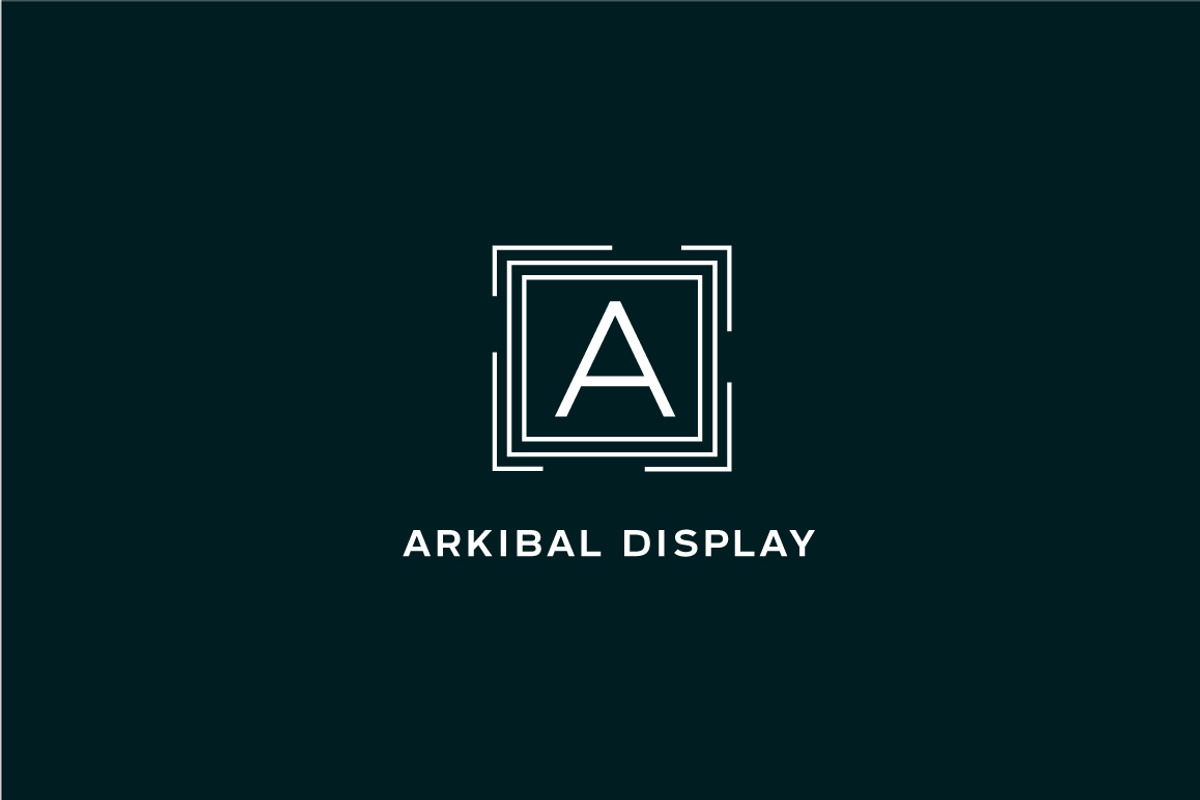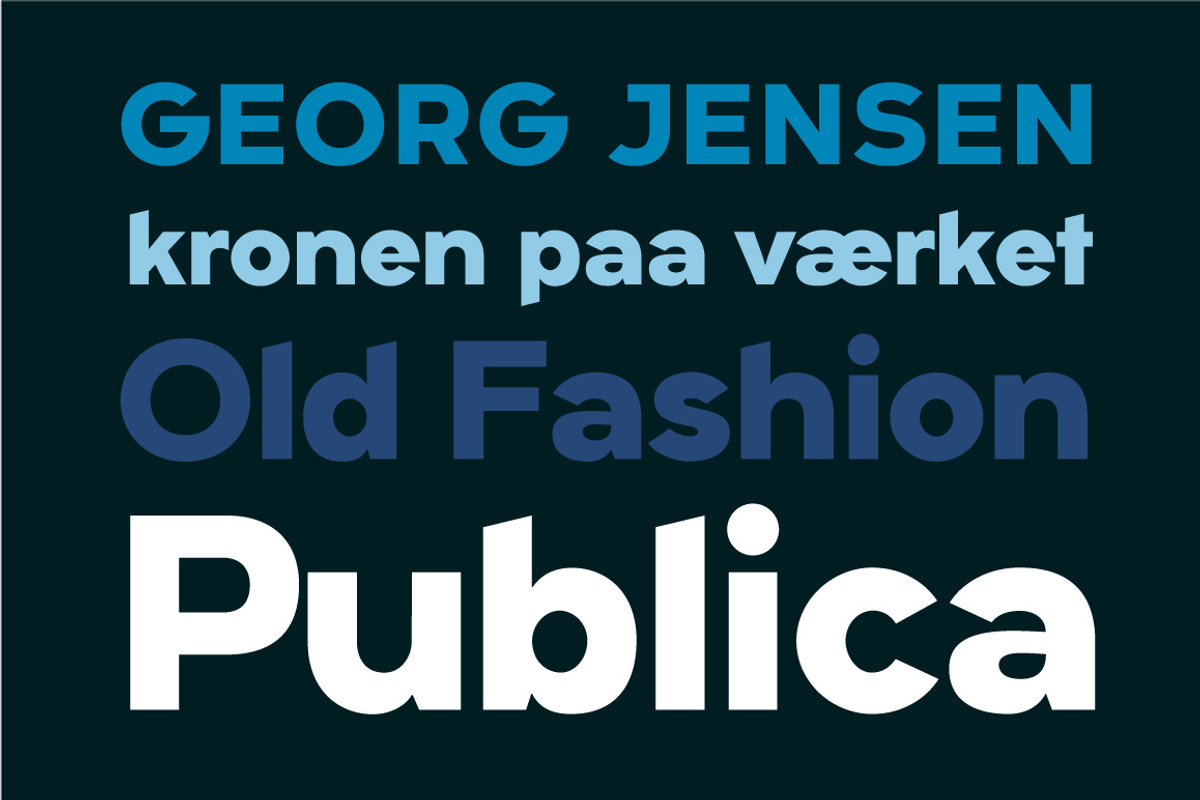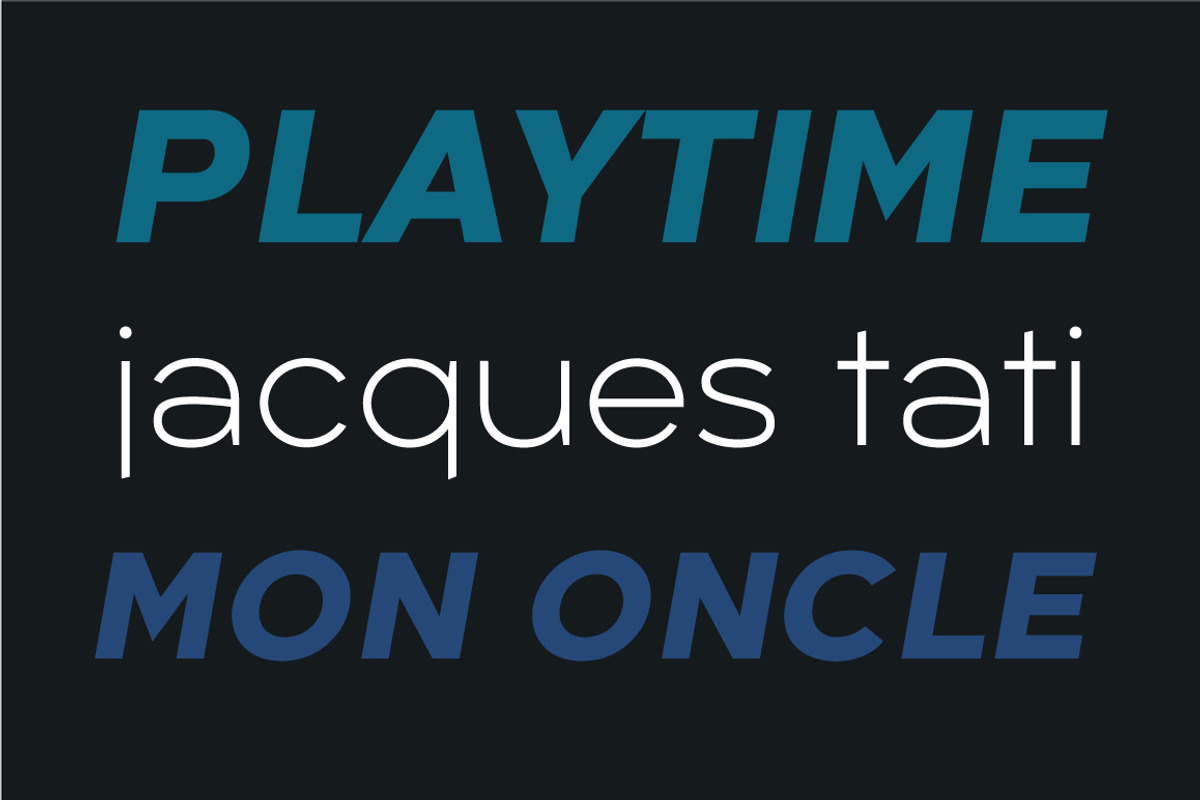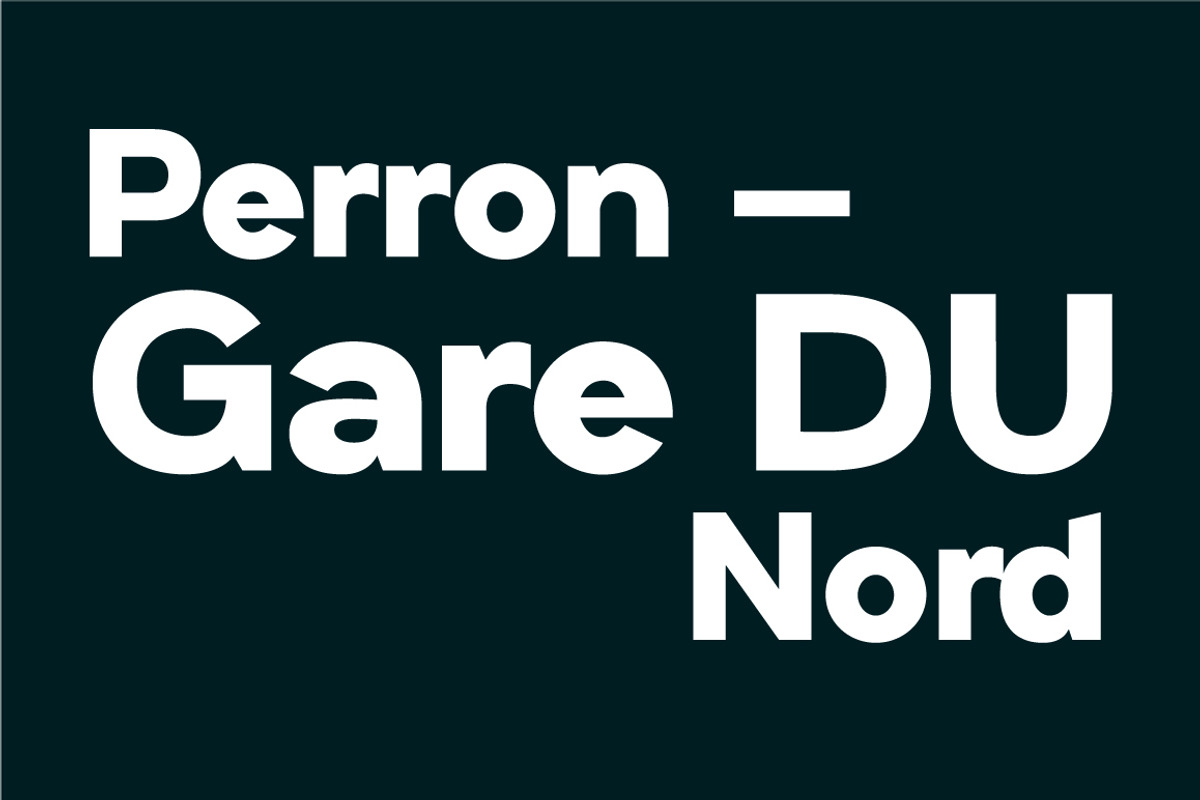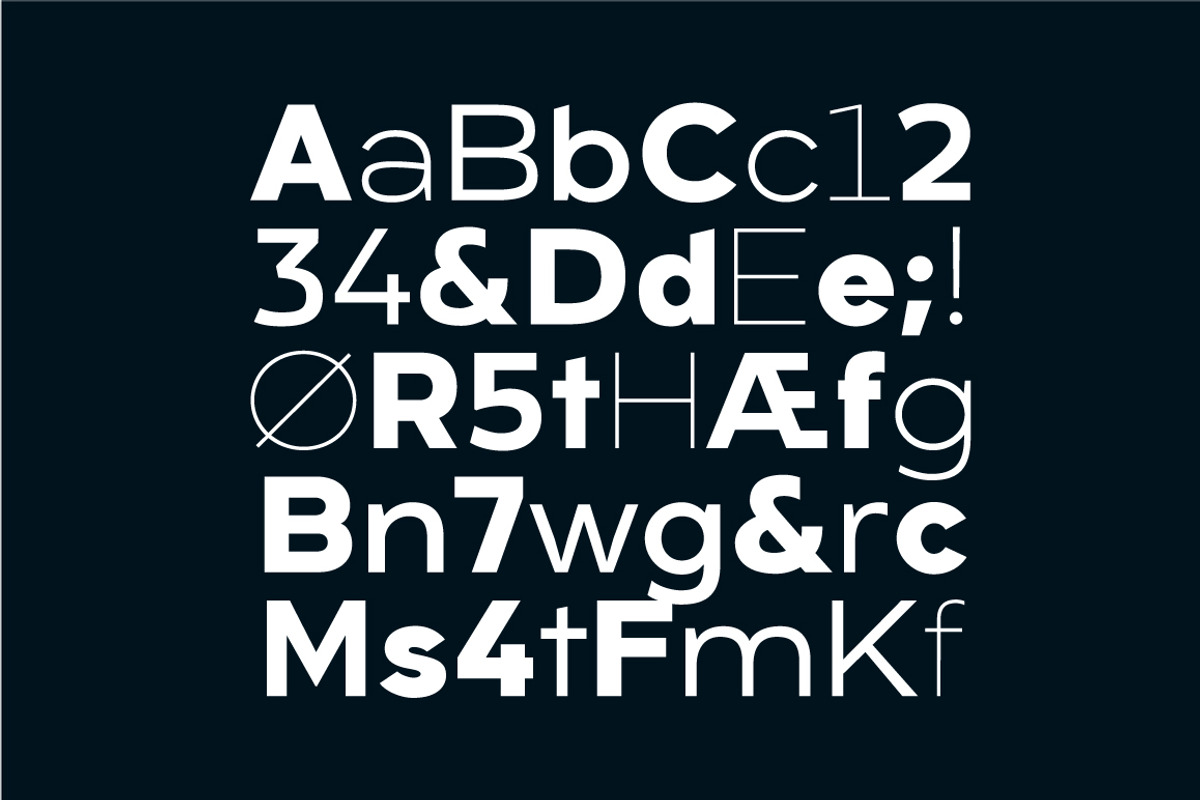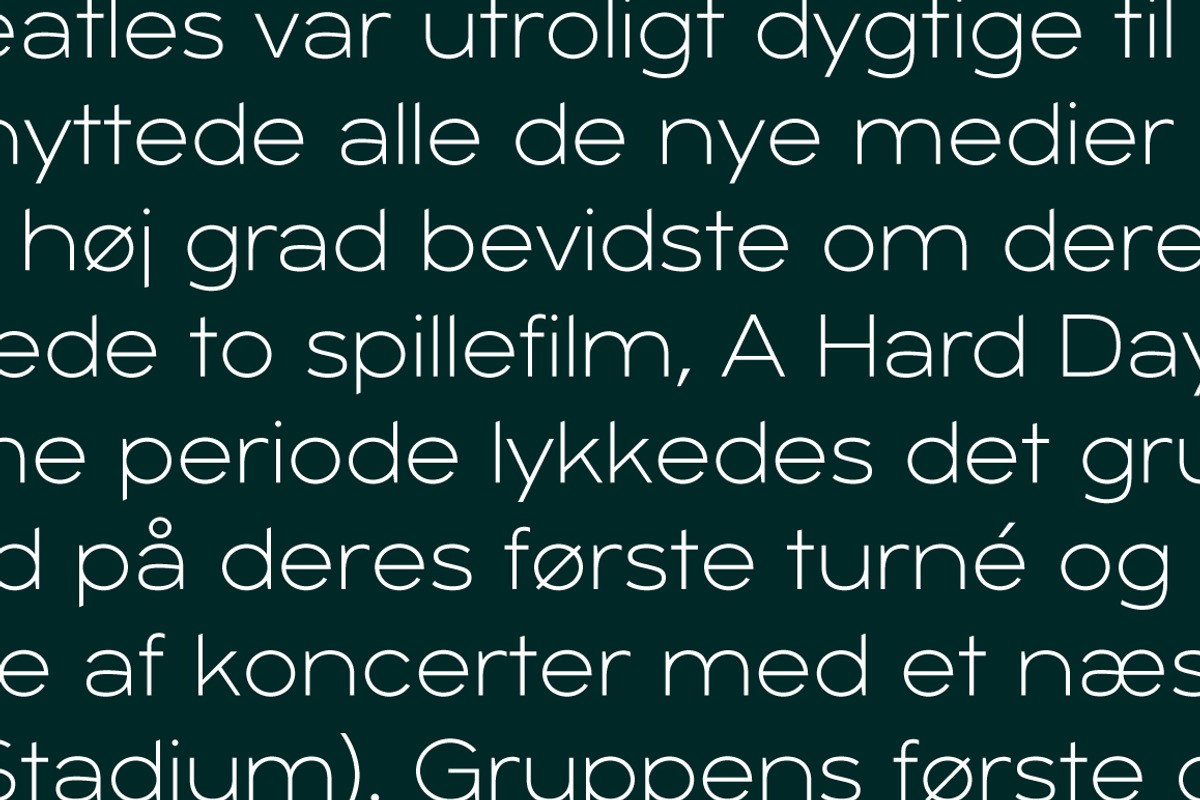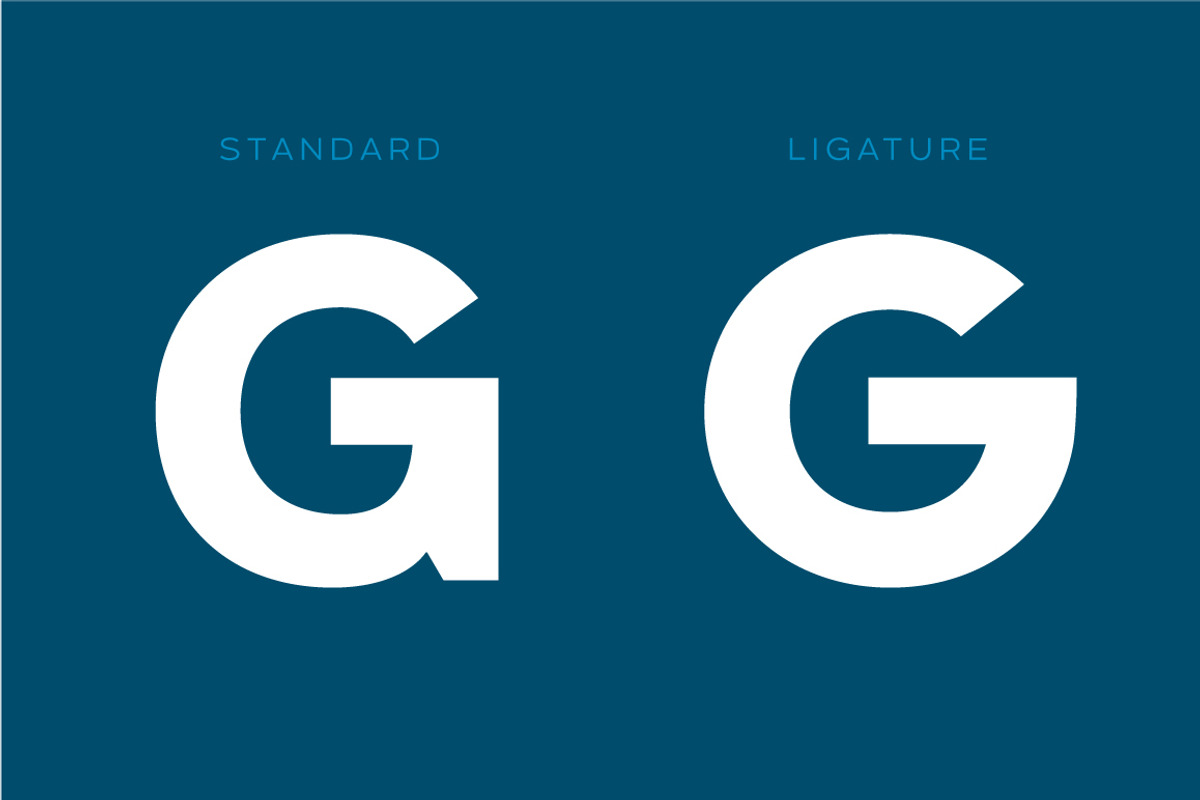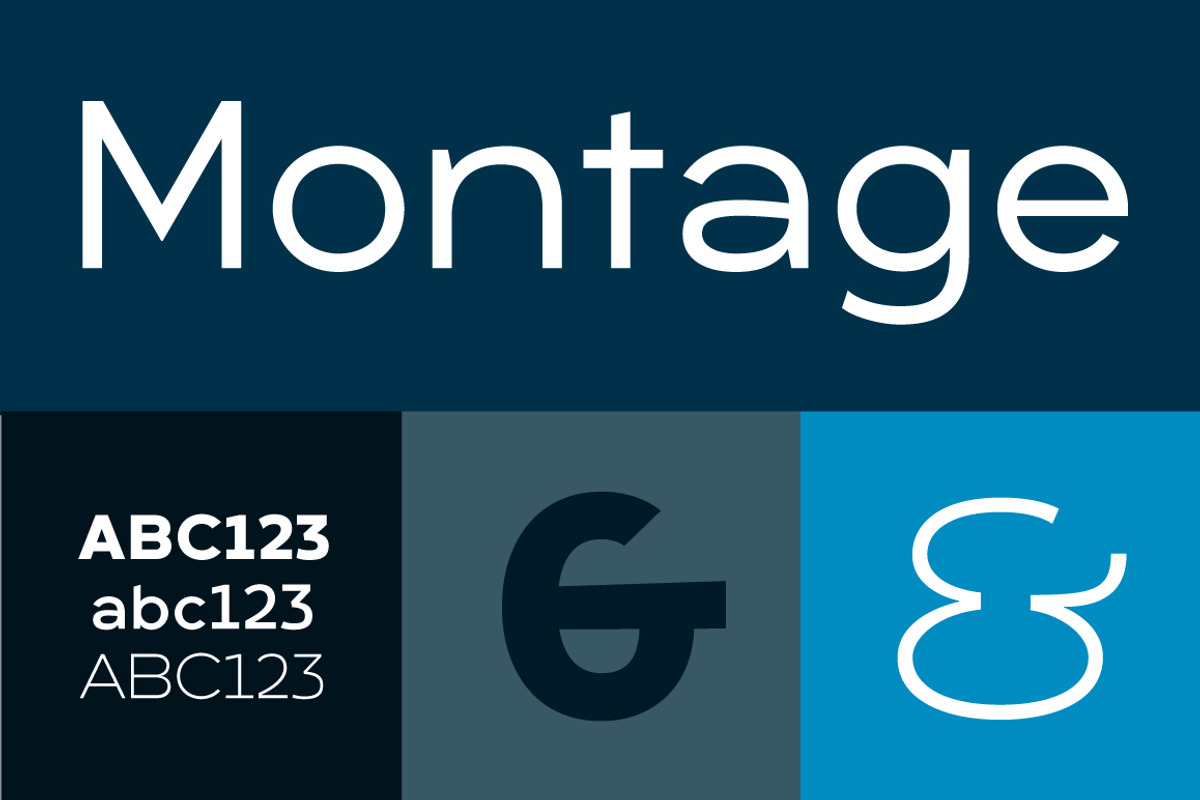
Arkibal Display
Display version is a little different from Sans family, where "a" is the center of the whole font. And letters "l, b, d, p, q and t" is the moved slight angle. The idea was to make two versions with different selection of letters. It provides good dynamics and structure of display version.
The inspiration comes from some old documents and store signs from my great-grandfather's old gold listfactoryfrom 1838. He delivered hits for many artists of that time, and various museums in Copenhagen. I priority increases to make a mixture of the classic letter witha modern lift. Seems it was interesting to try to reproduce some of the old characters and make a new font. Uppercase “G” was the first letter of the startingpoint. G stands for in danish “Guldramme”, which means “Goldframe”. Arkibal is coming from an almost old danish tradional name "Arkibald", only without "d".
Arkibal Display: a modern sans typeface created by Jan-Christian Bruun Arkibal is a typeface with 12 stylistic: sans, stencil Designer: Jan-Christian Bruun Date: 2014-2015 Style: Heavy, Bold, Regular, Medium, Light, Thin + Italic styles. Format: Opentype / TrueType